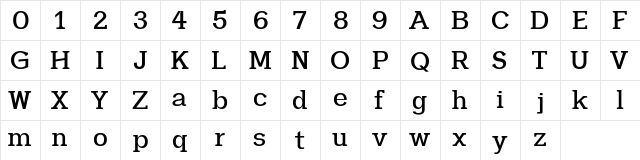
Heliony Regular
Design Context for Heliony Typeface
Heliony is a composed and adaptable typeface that performs quietly and consistently across a wide range of design contexts.
Pro Tip: Use Heliony in both headline and body roles to test its range before committing to a single application.